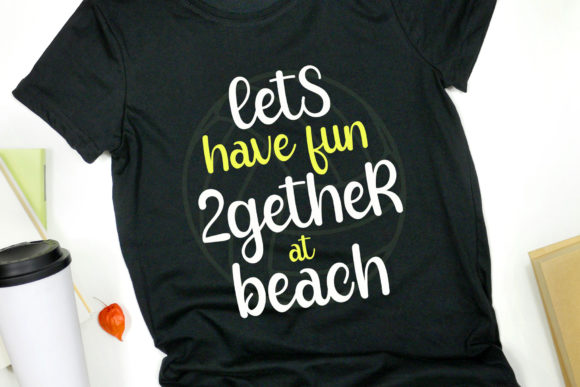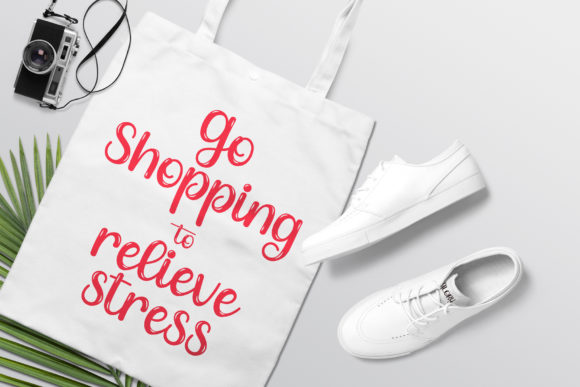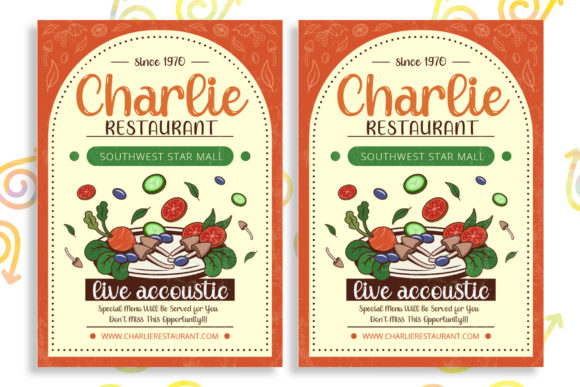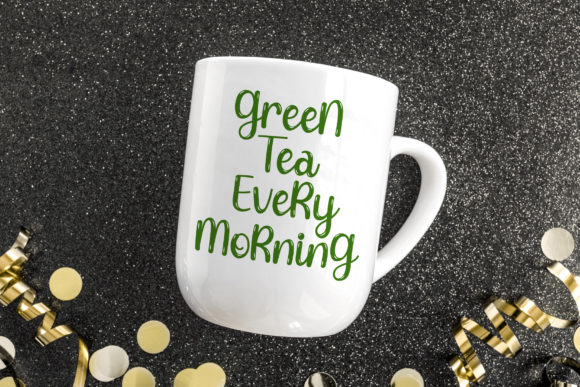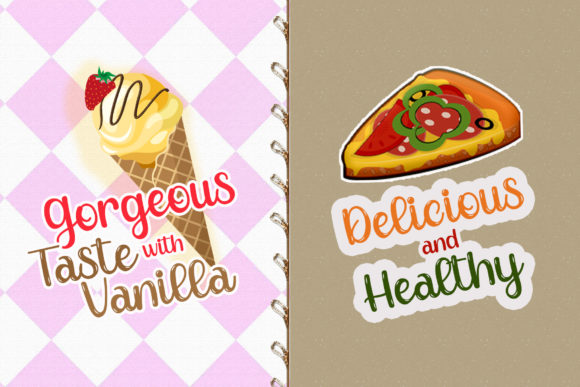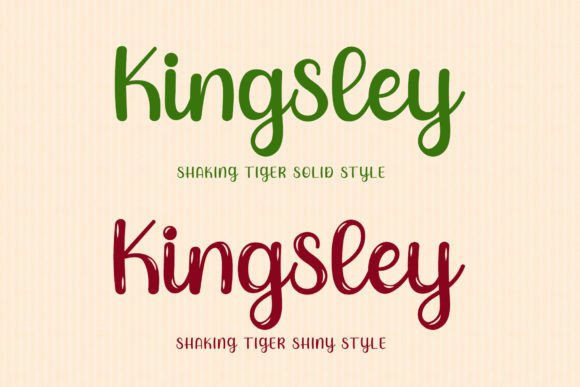
Introduction to Shaking Tiger Font
Shaking Tiger is a playful and sweet handwritten font.
Warm and jolly, this font will turn each of your project ideas into real works of art Have fun with this beautiful font and explore its endless variations.